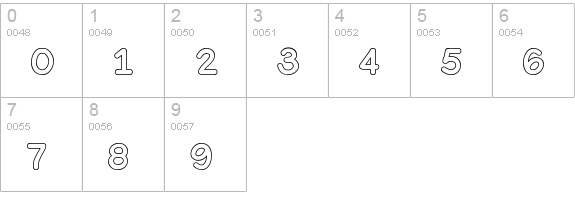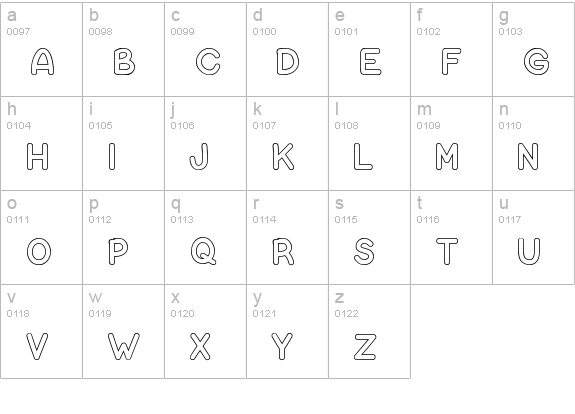
Bubble Letters Font Details
Introducing the vibrant and eye-catching Bubble Letters font, a delightful typeface that is sure to make your designs pop! With its playful and rounded letterforms, this font brings a touch of whimsy and fun to any project. Whether you are creating invitations, posters, or just want to add a touch of playfulness to your social media graphics, Bubble Letters is the perfect choice. What makes Bubble Letters even more appealing is that it is available for free! Yes, you read that right. This fantastic font can be freely downloaded from FontsMarket.com, one of the leading online font resources. So not only do you get an amazing font that will make your designs stand out, but you also get it without spending a dime. The Bubble Letters font offers a wide range of characters, from uppercase to lowercase, as well as numbers and special symbols, allowing you to fully express your creativity. Its smooth curves and bubbly shapes add a touch of cheerfulness to any design, making it ideal for children's projects, party invitations, or anything that needs a dose of lightheartedness. Whether you are a professional designer or a casual enthusiast, Bubble Letters is an essential addition to your font collection. Its versatility and unique style make it suitable for a variety of design projects, from branding and logo design to website headers and greeting cards. The possibilities are endless! So why wait? Give your designs that extra oomph with the Bubble Letters font, freely available for download at FontsMarket.com. Don't miss out on this opportunity to add a touch of playfulness to your creations and make them truly stand out. Download Bubble Letters today and let your imagination soar!